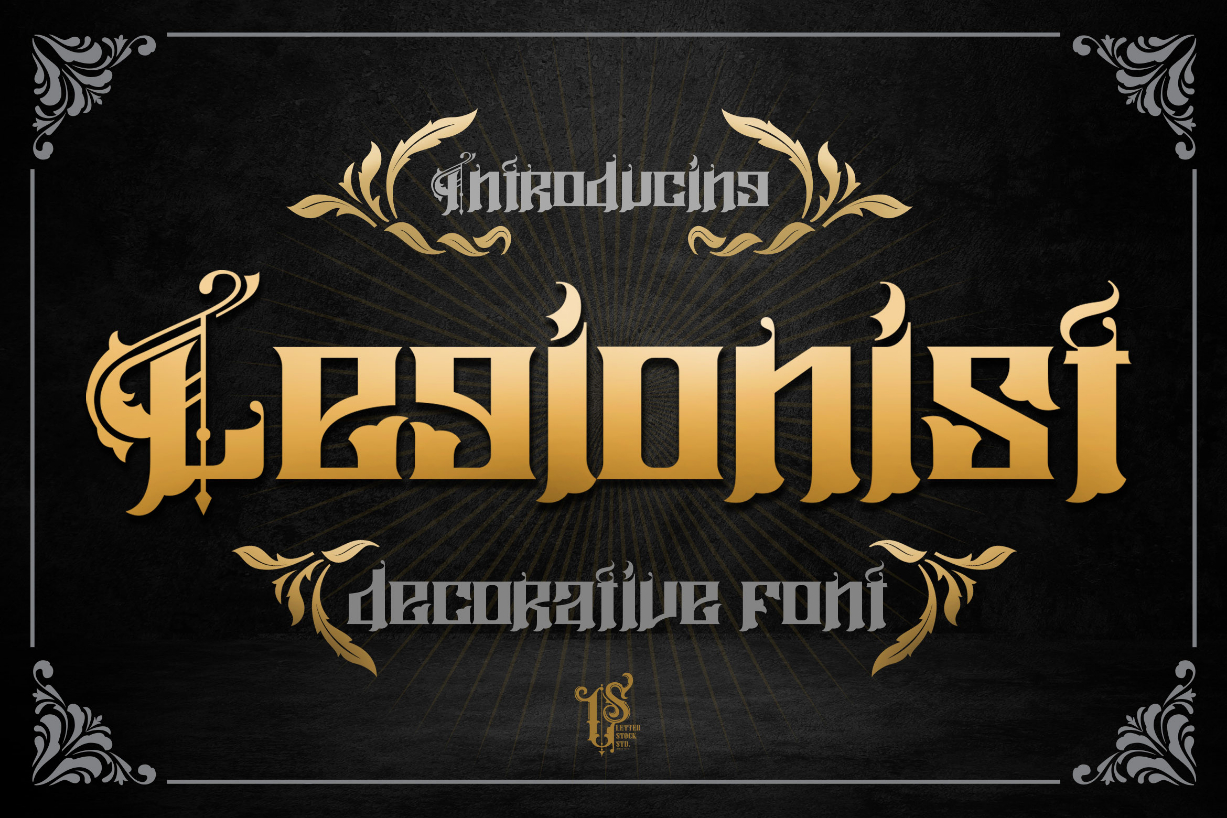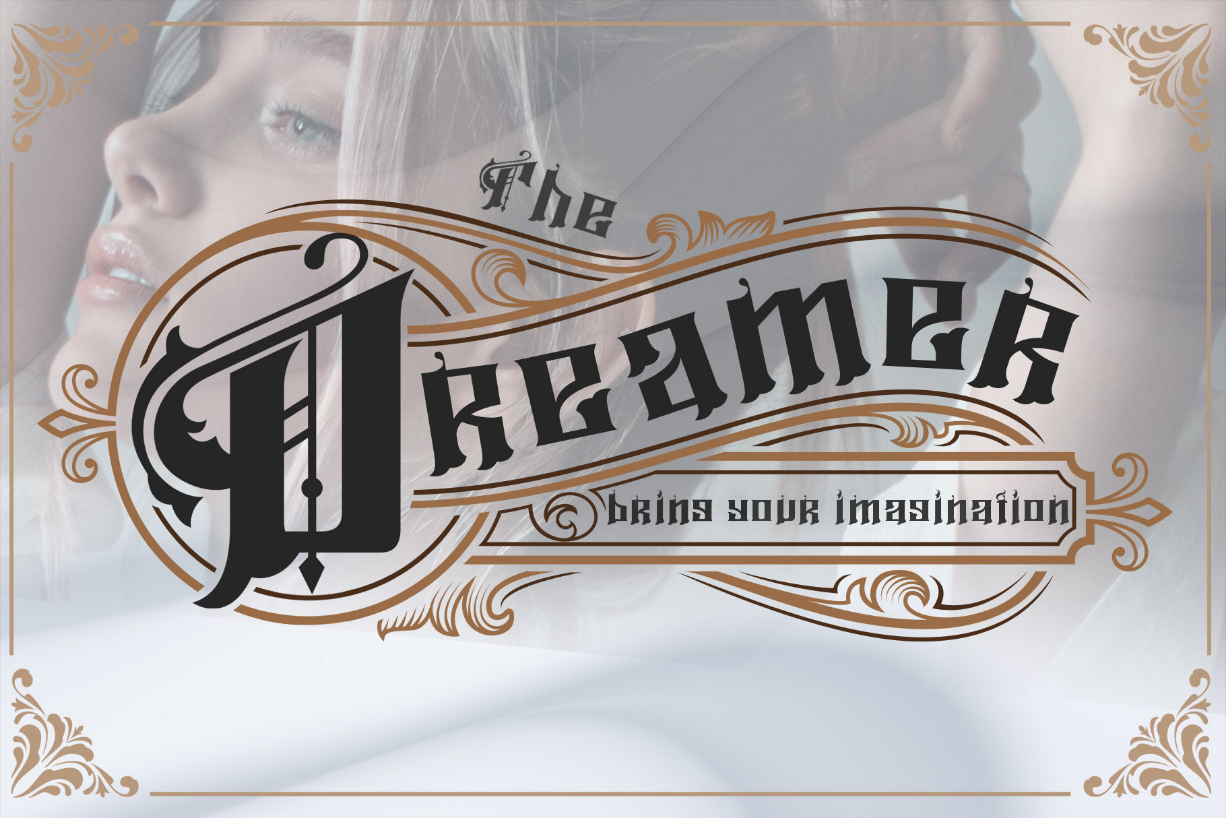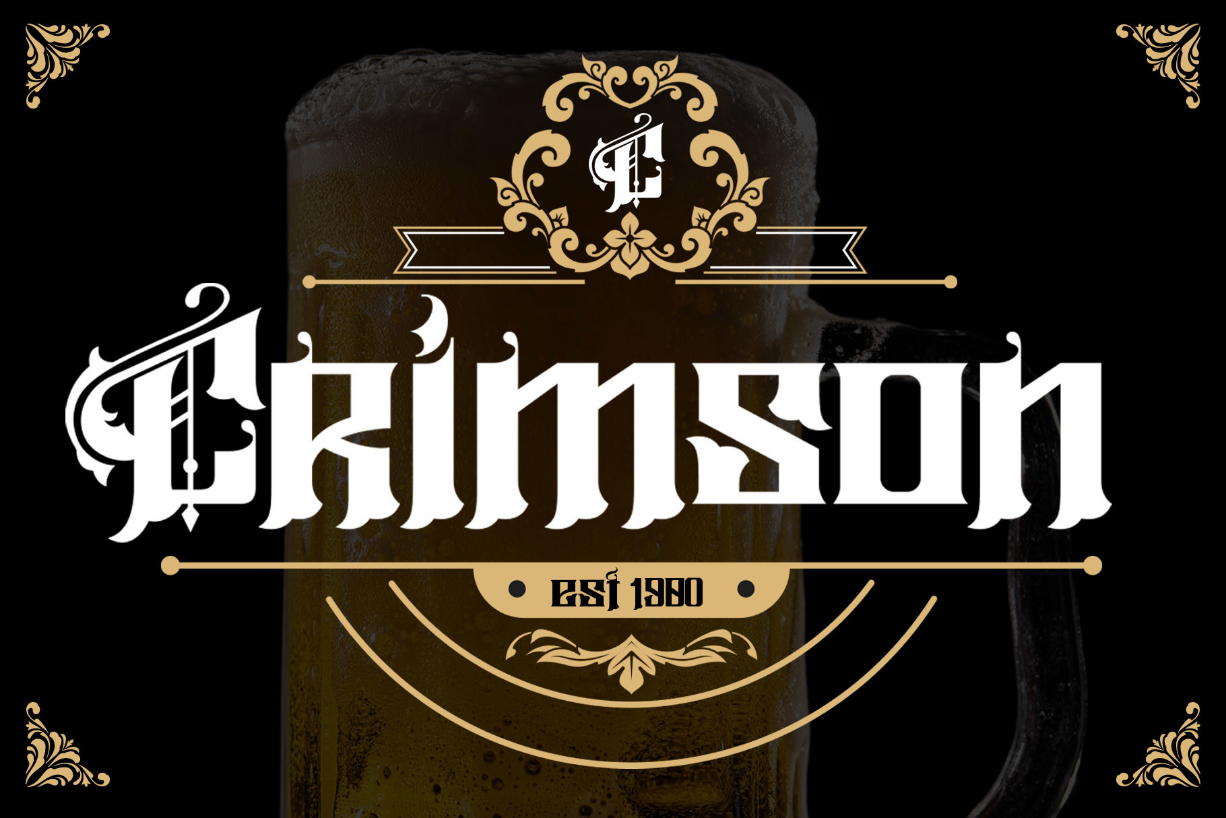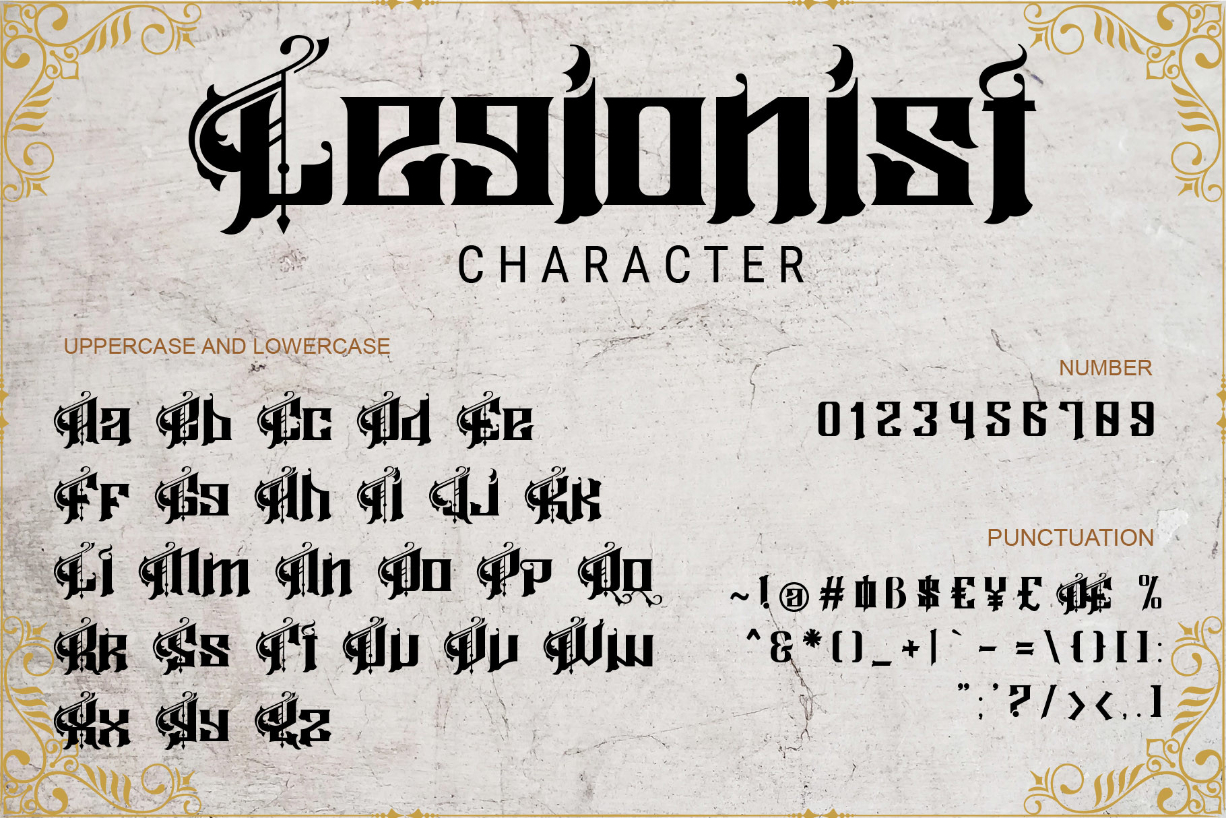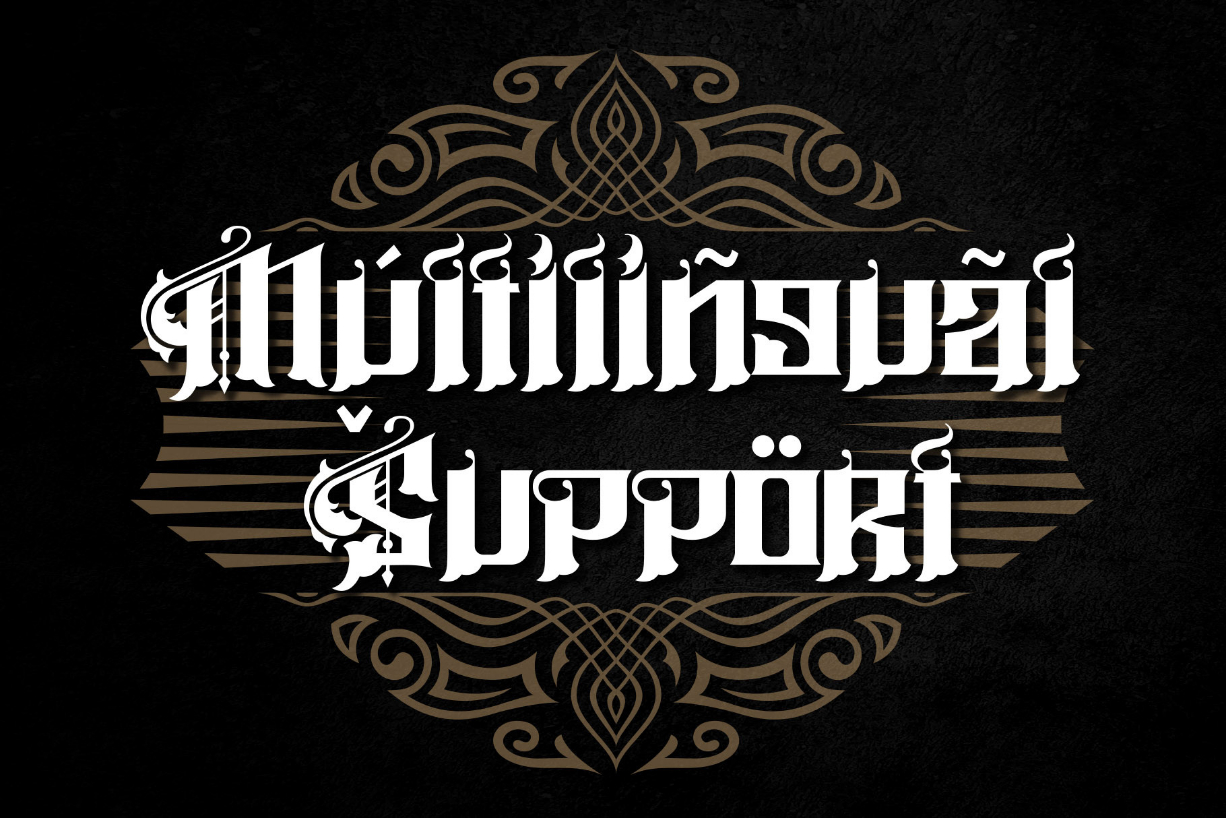
About Legionist Font
Legionist is a bold, thick lettered and assertive blackletter font. Add it confidently to your favorite creations and let yourself be amazed by the outcome generated.